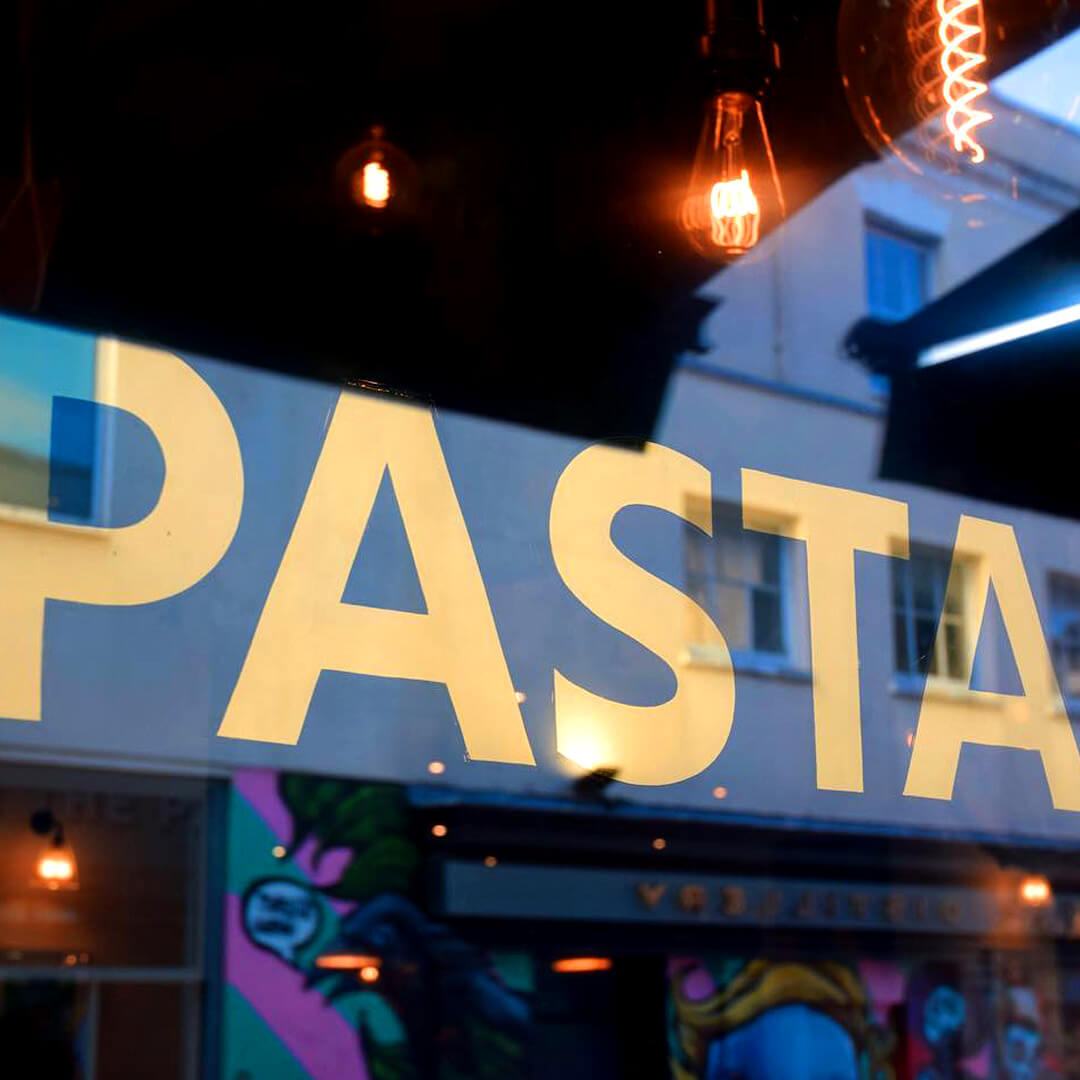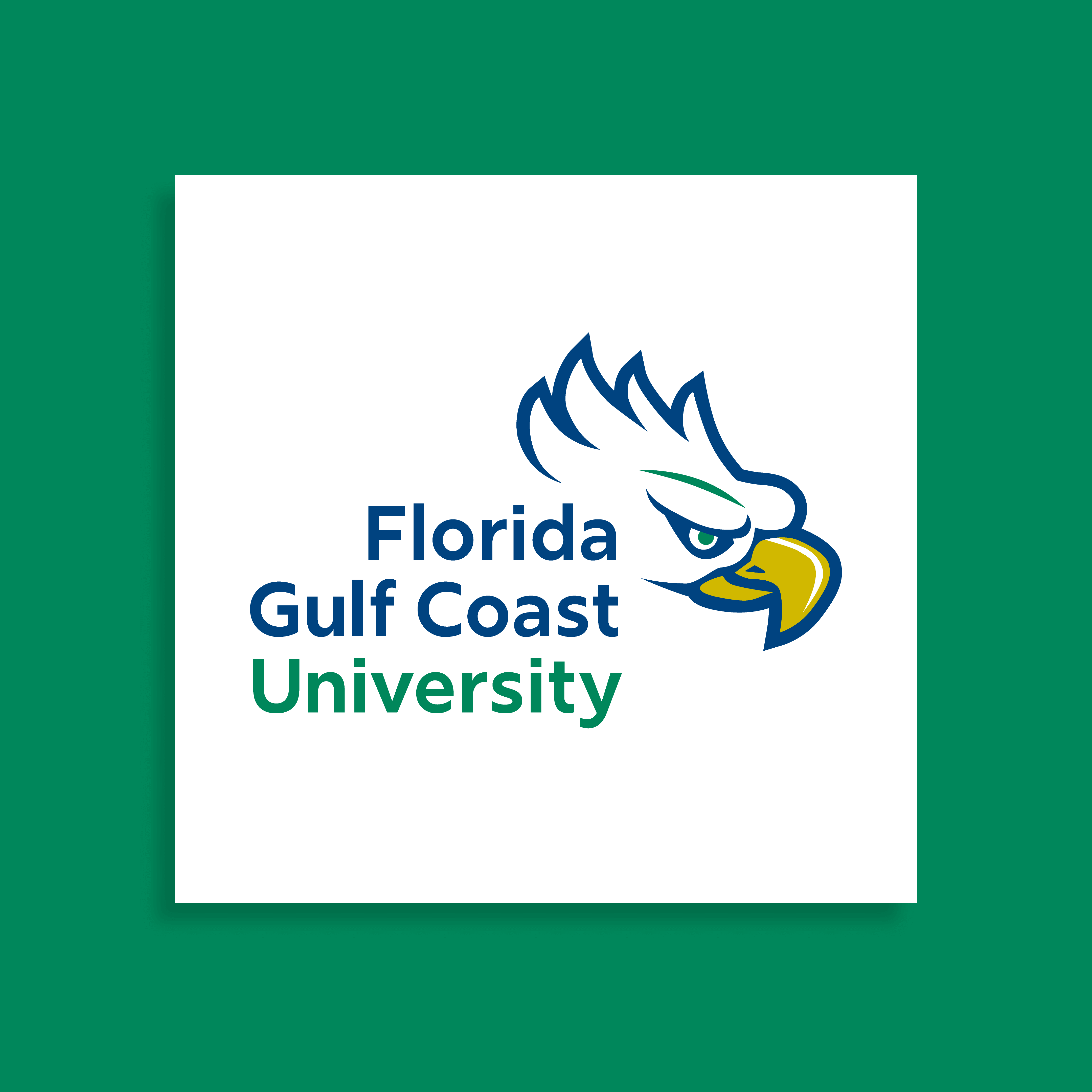
Rig Sans
Features
Opentype Features
Slashed [Dotted] Zero
Ordinals
Fractions
Inferiors & Superiors
Tabular Figures
Oldstyle Figures
Case Sensitive Punctuation
Contextual Alternatives
Alternative &
Alternative Q
Alternative J
Alternative I
Alternative G
Rig Sans is a crystal-clear geometric sans serif, designed for clarity and reliability. Its open, streamlined structure gives text a confident, affable tone, while maintaining a neutral, transparent quality that works across a variety of contexts.
Originally developed to withstand 3D distortions, its letterforms were crafted with simplicity and legibility at their core. Wide apertures, clipped terminals and a generous x-height ensure Rig Sans performs beautifully both in print and on screen.